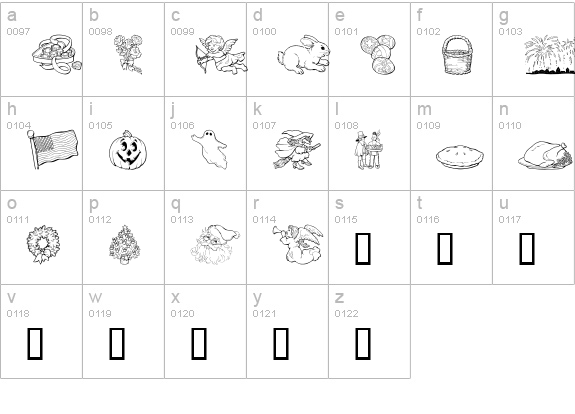
GE Holiday Sampler Font Details
The GE Holiday Sampler font is a whimsical and festive typeface perfect for adding a touch of holiday cheer to your designs. With its playful shapes and decorative elements, this font is sure to bring a sense of joy and celebration to any project. Whether you're creating holiday cards, party invitations, or seasonal graphics, the GE Holiday Sampler font is a fun and versatile choice. And the best part? This font is completely free to download at FontsMarket.com! Simply head over to the website and add the GE Holiday Sampler font to your collection with just a few clicks. So spread some holiday magic with this delightful font today!